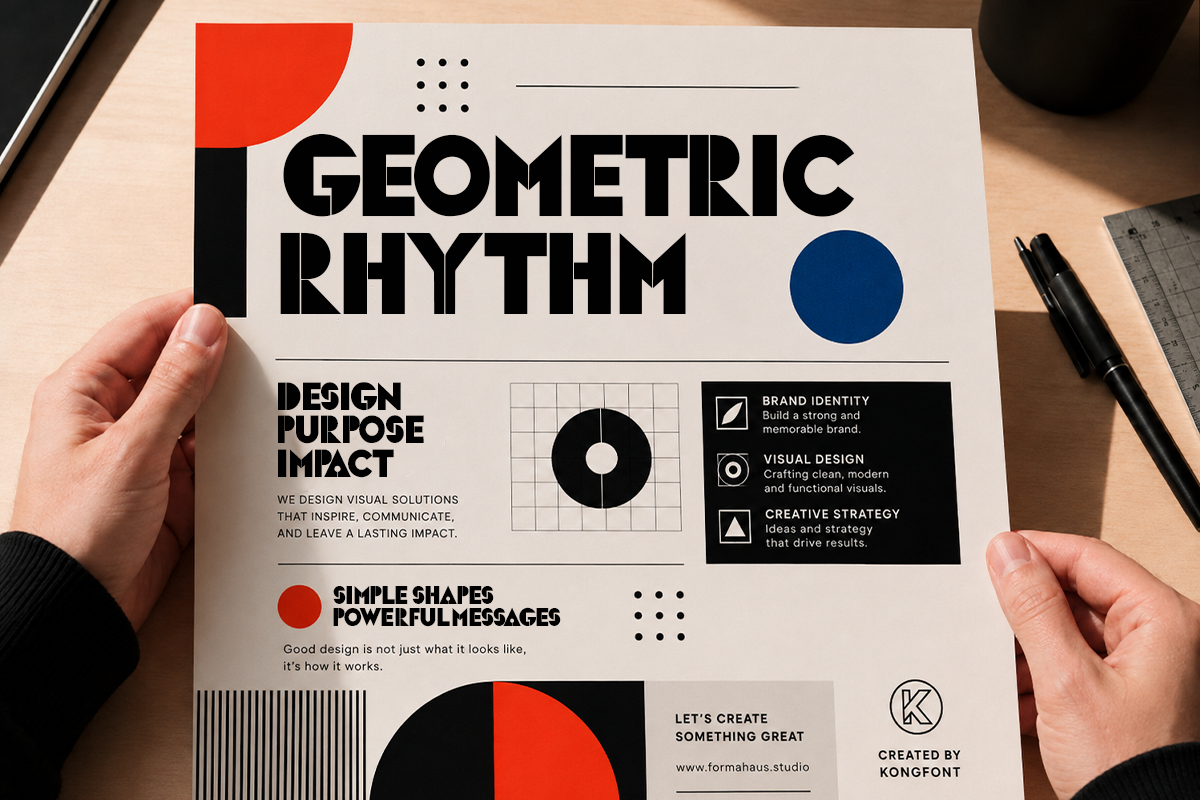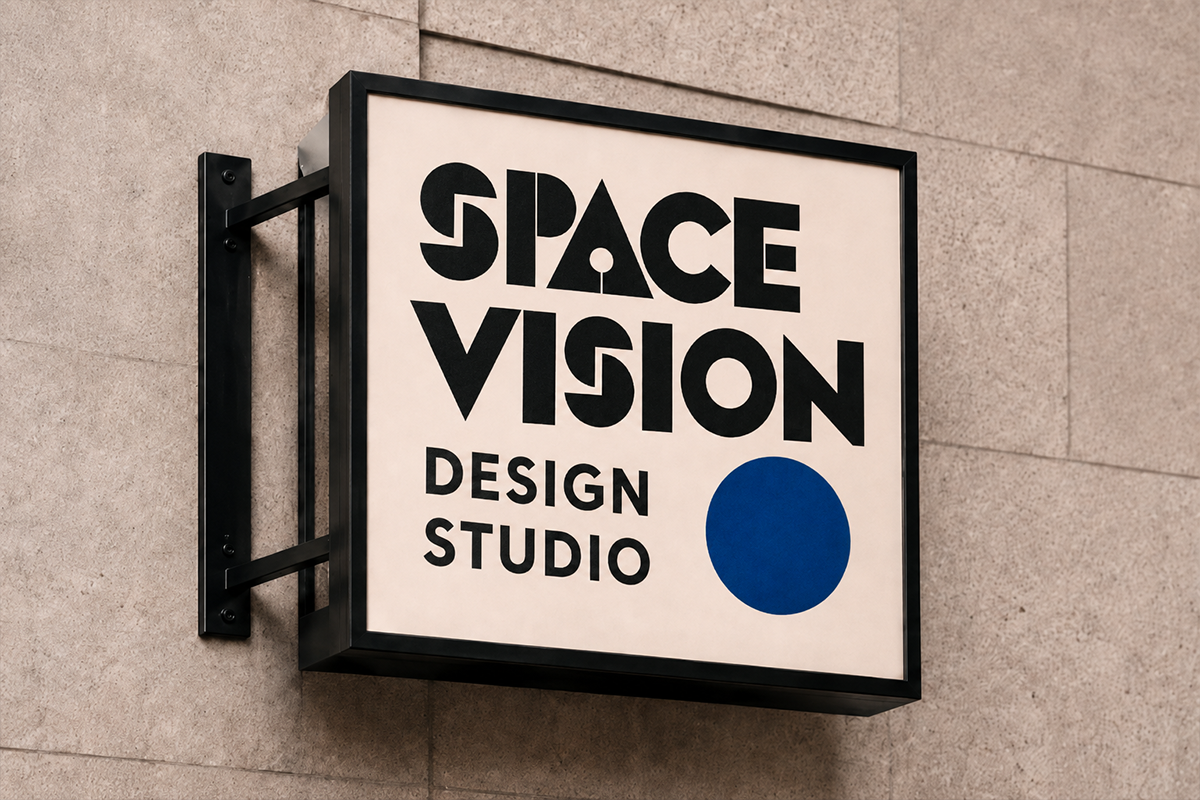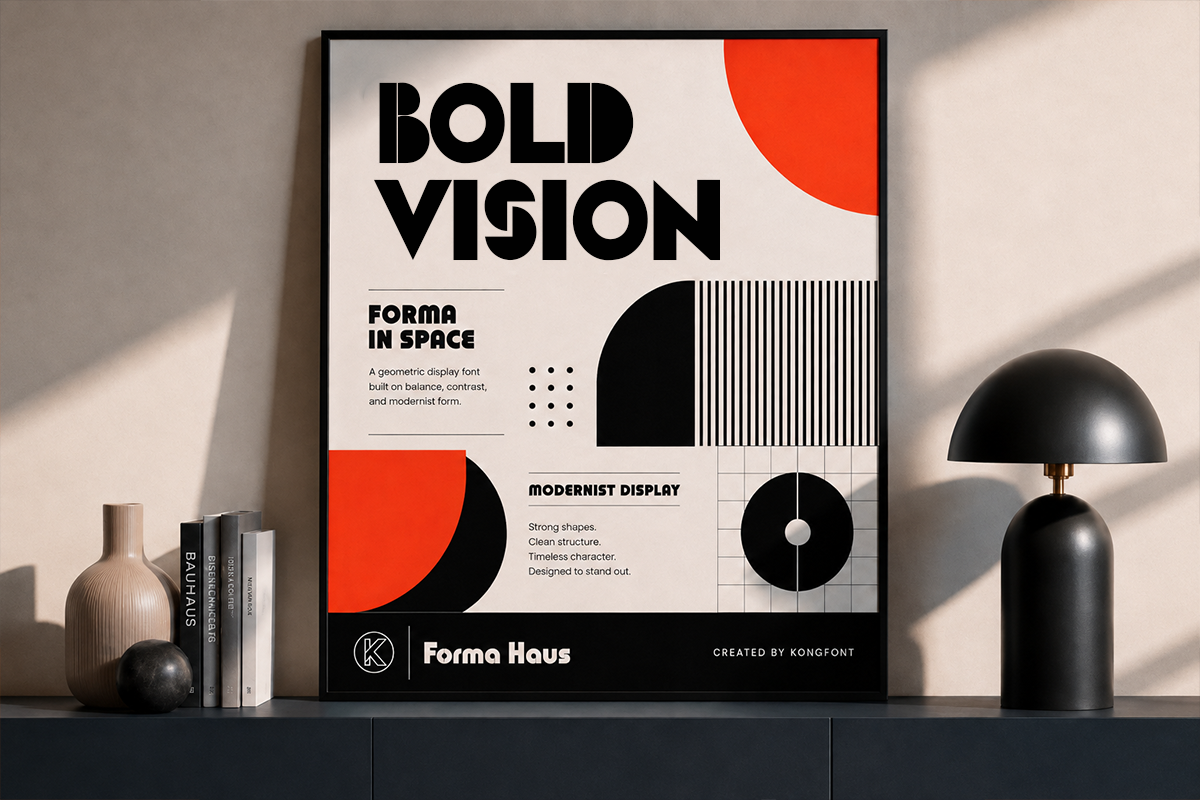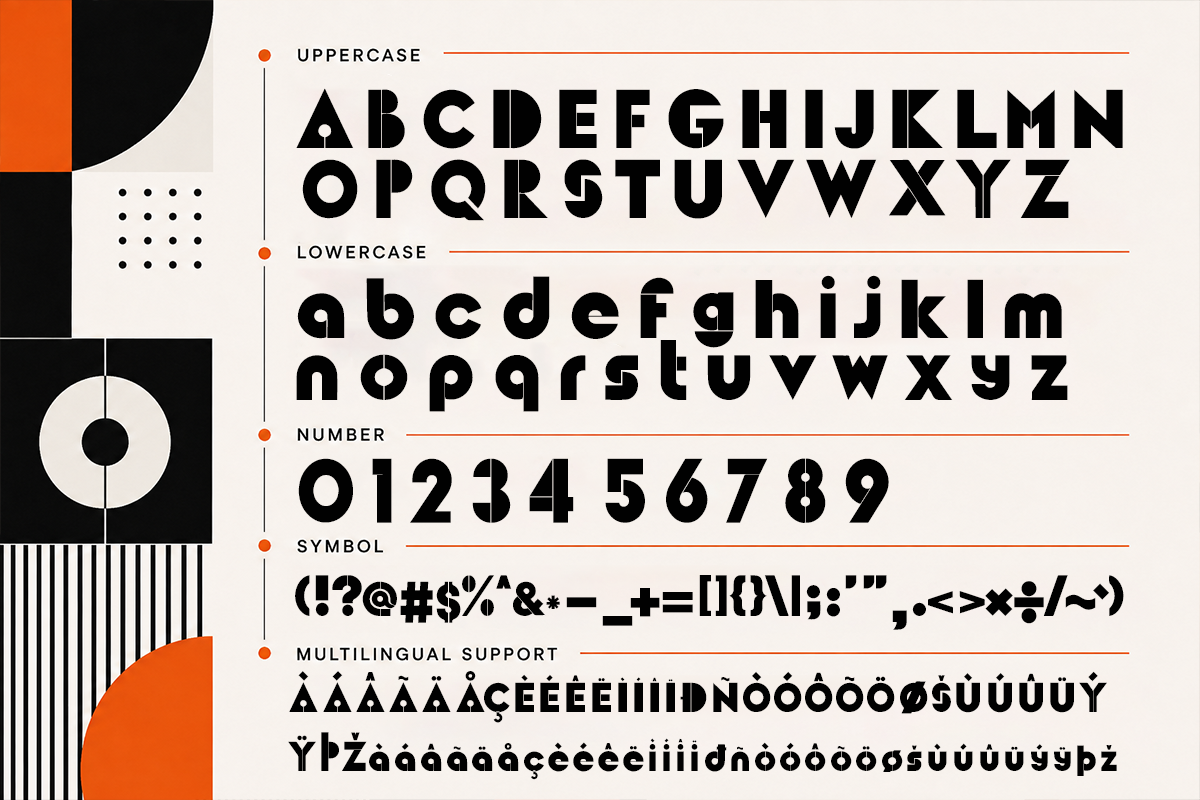
Forma Haus is a bold geometric display font inspired by modernist design, Bauhaus principles, and contemporary visual architecture. Its clean construction, strong circular forms, and carefully balanced geometry create a distinctive typographic style that feels structured, confident, and unmistakably modern.
Designed with a focus on clarity, simplicity, and visual impact, Forma Haus combines functional geometry with playful character. Its bold shapes and unconventional details give headlines a strong graphic presence while maintaining a clean and sophisticated aesthetic.
Forma Haus is perfect for modern branding, logos, posters, editorial layouts, architecture projects, creative studios, fashion campaigns, packaging, social media graphics, exhibitions, album artwork, and contemporary visual identities.